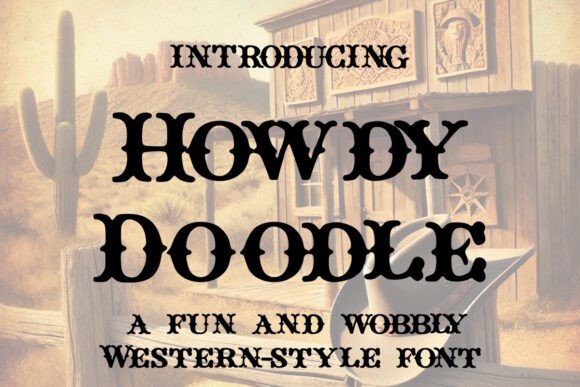
Howdy Doodle Font: Western Charm for Handmade Labels
I was staring at a blank candle label template late one Tuesday night, trying to find a typeface that felt authentically rustic without looking like a generic costume party prop. My shop’s new line of beeswax candles needed something warm and tactile, but every standard serif I tested felt too stiff, and the scripts were too fussy for the minimalist aesthetic I was aiming for. That is when I loaded Howdy Doodle into my design software, and the entire mood of the product line shifted instantly. As a unique slab serif among creative fonts, this typeface brought a wobbly, hand-drawn energy that made my digital mockup look like it had already been letterpressed on vintage paper. For makers and sellers who need their packaging to tell a story before the customer even reads the scent notes, finding a font with this level of inherent personality is often the difference between a product that looks manufactured and one that feels lovingly crafted.
Using Howdy Doodle for Candle Labels and Product Packaging
When designing physical merchandise, Howdy Doodle serves as an exceptional slab serif choice because its bouncy serifs create visual texture that translates beautifully to print and packaging materials. In my own testing with adhesive vinyl and cardstock labels, the wonky nature of the letterforms helped hide minor alignment imperfections that often plague handmade production runs. Unlike rigid geometric fonts where a millimeter of misalignment screams "error," the organic quirks of Howdy Doodle embrace the handmade ethos, making slight variations feel intentional and artistic. I used it specifically for the scent names—"Wildflower Honey" and "Campfire Cedar"—and found that the display font weight held up perfectly even when scaled down to fit on a 3-inch round label. The Western charm embedded in the strokes adds a layer of nostalgia that pairs exceptionally well with kraft paper, textured linen labels, and matte finishes, elevating the perceived value of the item without requiring expensive foil stamping or embossing techniques.
Readability Tips for Small Stickers and Boutique Tags
Crafters using Howdy Doodle for small-scale applications like price tags, jar stickers, or favor boxes must pay close attention to spacing and sizing to maintain legibility while preserving the font's character. Because this is a decorative slab serif with significant personality, it performs best as a headline or focal point rather than body text. When I designed hang tags for a batch of tote bags, I learned quickly that keeping the font size above 14pt ensured the intricate wobbles remained distinct after cutting. For Cricut or Silhouette users, this typeface cuts surprisingly well despite its irregular edges, provided you use a sharp blade and avoid scaling it down to microscopic sizes where the serifs might tear. If you are printing directly onto products like mugs or shirts, test a single unit first to see how the ink spreads; the hand-drawn quirks can sometimes fill in on porous surfaces, so increasing the tracking slightly can help maintain that open, airy Western feel.
Designing Wedding Invitations with Howdy Doodle Typography
For stationery designers and DIY brides, Howdy Doodle offers a refreshing alternative to traditional calligraphy when creating wedding invitations, welcome signs, and seating charts that require a relaxed yet elegant vibe. I recently used this font suite for a backyard barn wedding collection, and the bouncy serifs provided the perfect anchor for a design that needed to feel celebratory but not stuffy. The key to success here is treating Howdy Doodle as the star of the show; let it handle the couple’s names, the date, or the "Welcome" header, while relegating logistical details to a clean sans serif or simple monoline script. This contrast highlights the rootin’ tootin’ personality of the display font without overwhelming the reader with too much visual noise. The Western charm works particularly well for outdoor ceremonies, rustic venues, and autumn weddings, bridging the gap between trendy boho aesthetics and classic Americana heritage.
Font Pairing Strategies for Digital Printables and Wall Art
Creating sellable digital downloads requires thoughtful font pairing, and Howdy Doodle shines brightest when balanced against minimalist typography in printable wall art and planner templates. When I designed a set of kitchen conversion charts and pantry labels, I paired this wobbly slab serif with a tall, narrow sans serif for the measurements and instructions. The result was a layout that felt curated and professional rather than chaotic. For quote prints or nursery art, allow Howdy Doodle to carry the emotional weight of the phrase while using a lighter weight companion font for attribution or secondary text. This hierarchy is crucial for buyer intent; customers browsing Etsy or Creative Market are looking for designs that are visually digestible at thumbnail size. The inherent warmth of the typeface draws the eye, but the supporting typography ensures the product remains functional and readable, which ultimately drives sales and positive reviews for your digital shop.
Seasonal Craft Projects and Shop Branding Applications
Beyond individual products, Howdy Doodle functions as a powerful branding tool for shops that want to establish a consistent, friendly identity across seasonal collections and social media graphics. I integrated this font into my shop’s holiday gift guide headers and Instagram story templates, and the immediate recognition factor was palpable; returning customers associated those bouncy serifs with my brand’s cozy, approachable aesthetic. For seasonal crafts like Halloween treat bags, Christmas gift tags, or Fourth of July signage, the Western charm adapts effortlessly depending on the color palette and accompanying illustrations. Use deep oranges and blacks for autumn, muted greens and creams for winter, or bright primaries for summer festivals. The versatility of this display font means you do not need to purchase a new typeface for every holiday; instead, you can reinvent the same core asset through styling and context. This consistency builds trust and familiarity, turning casual browsers into loyal patrons who recognize your work instantly in a crowded marketplace.